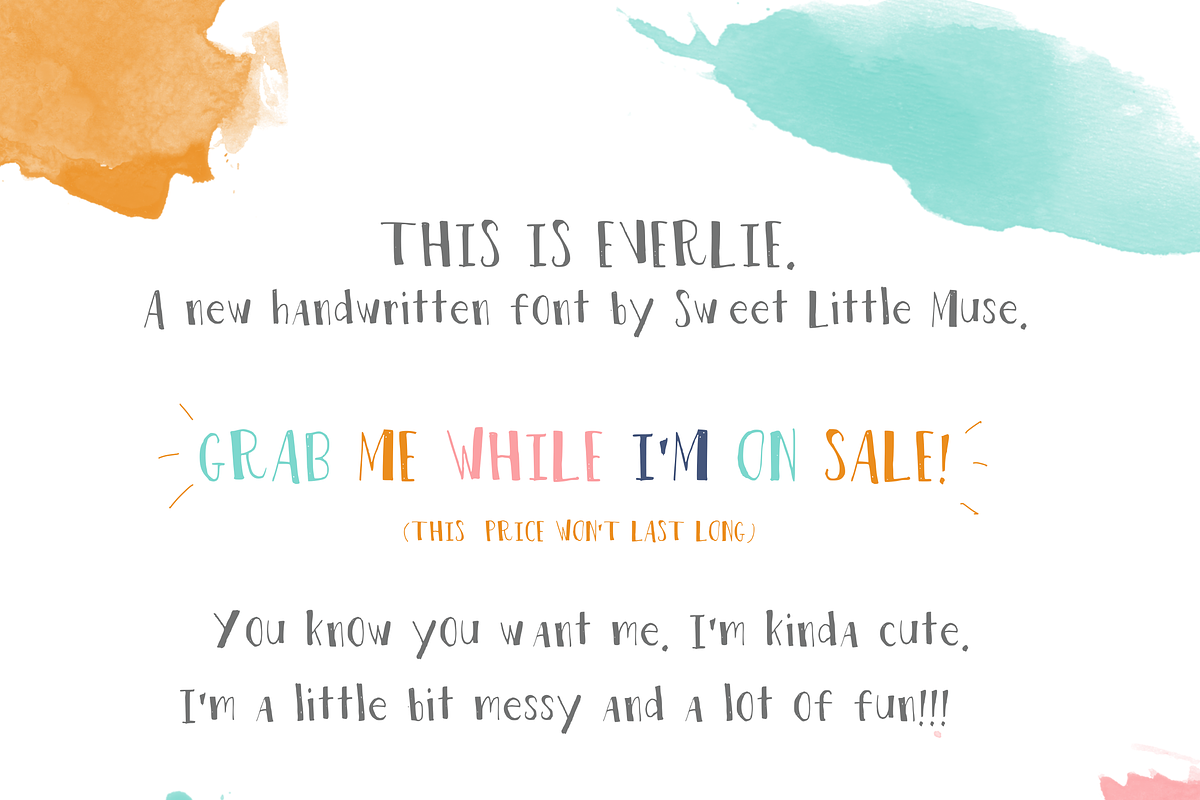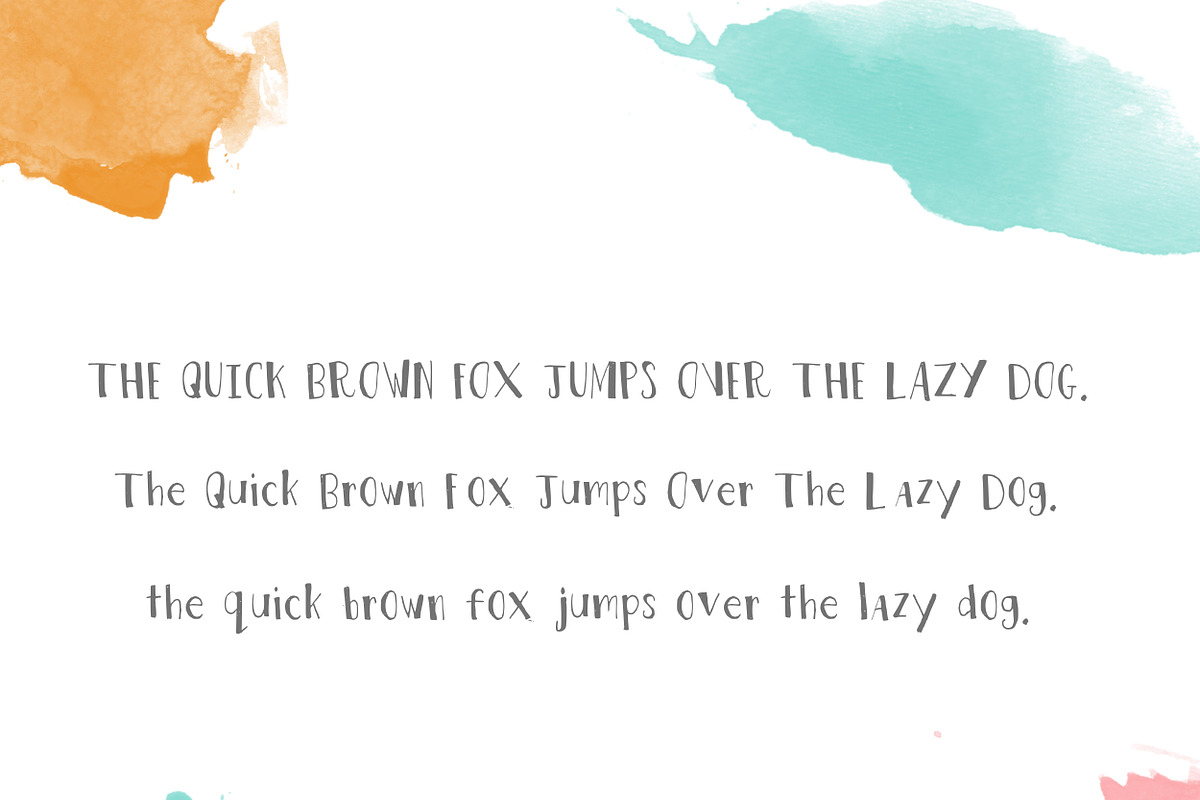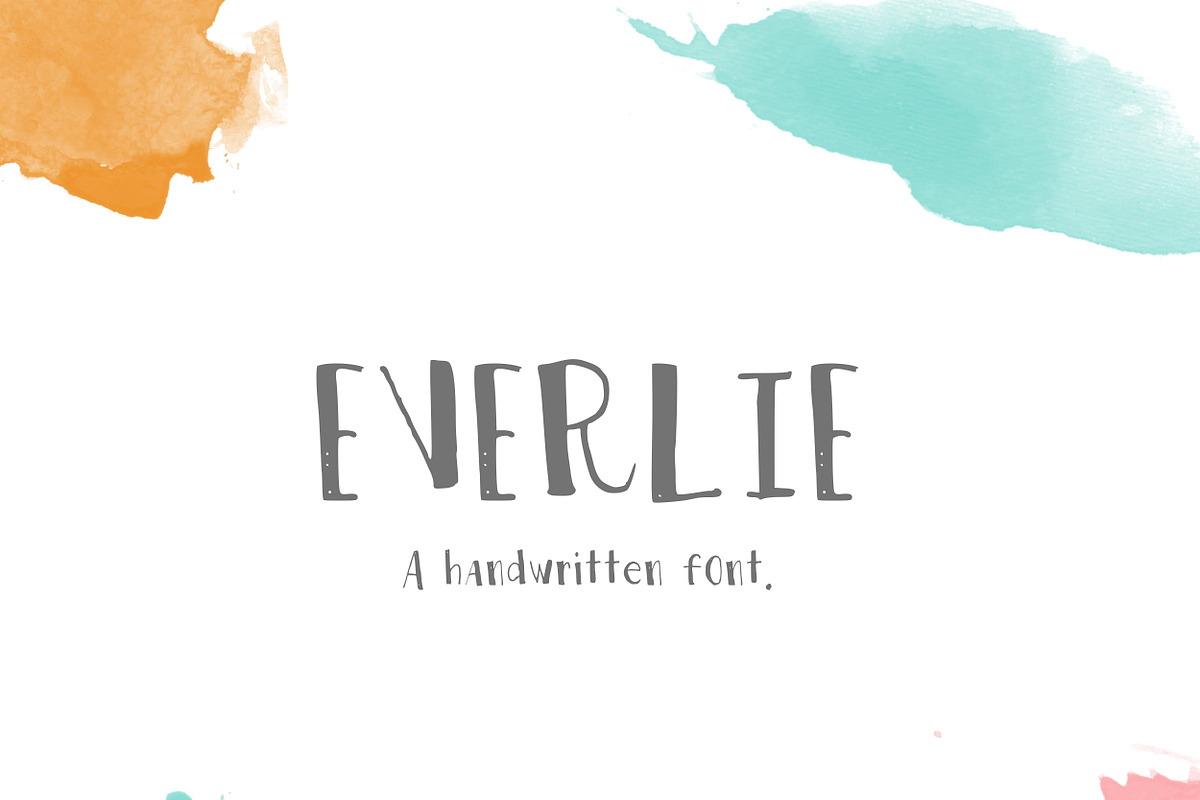
Everlie Handwritten Font
Everlie Handwritten Font by Sweet Little Muse is a font selected for branding, posters, packaging, typography.
Why Everlie Handwritten Font is worth a look
Everlie Handwritten Font by Sweet Little Muse fits naturally into Branding, posters, packaging, typography.